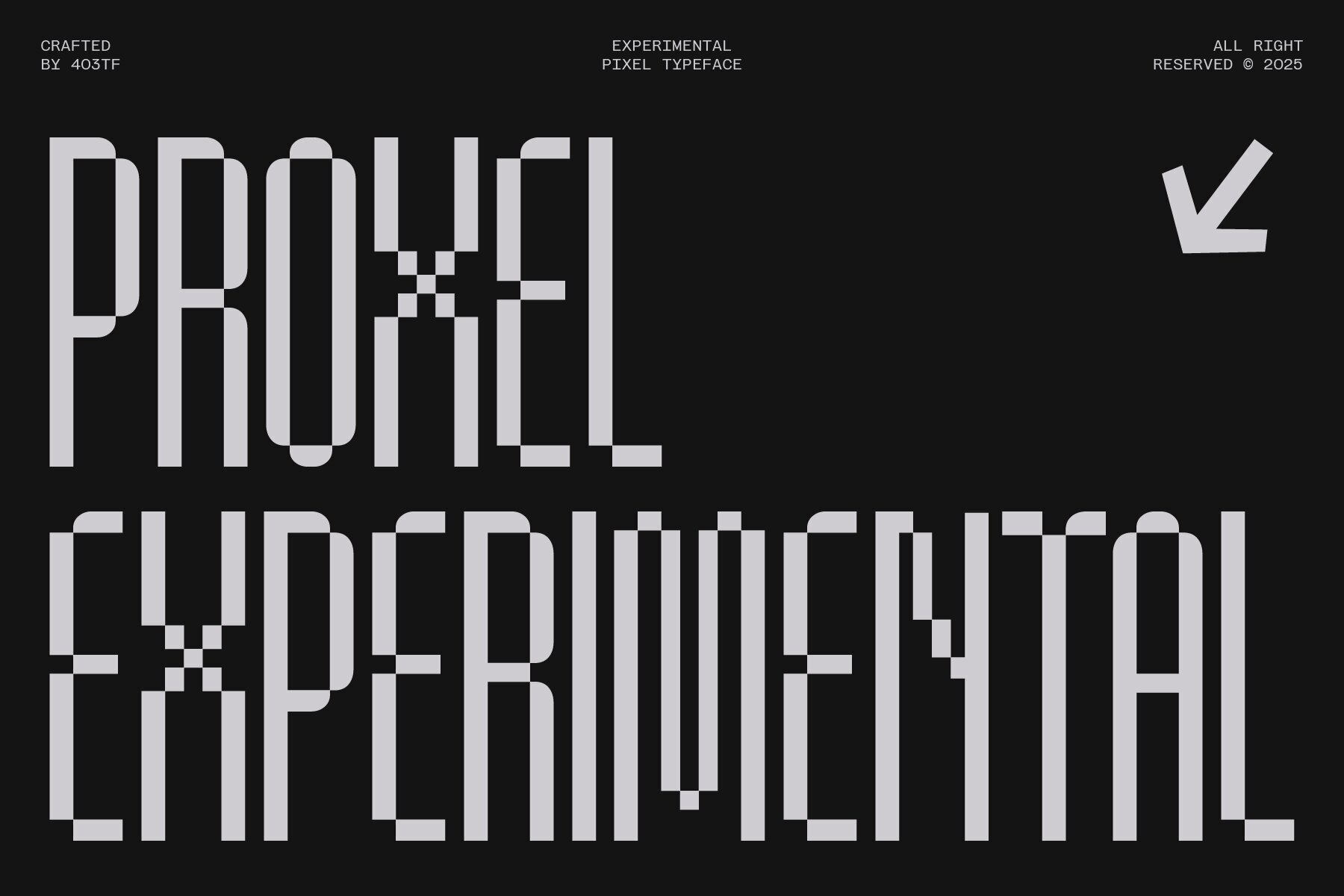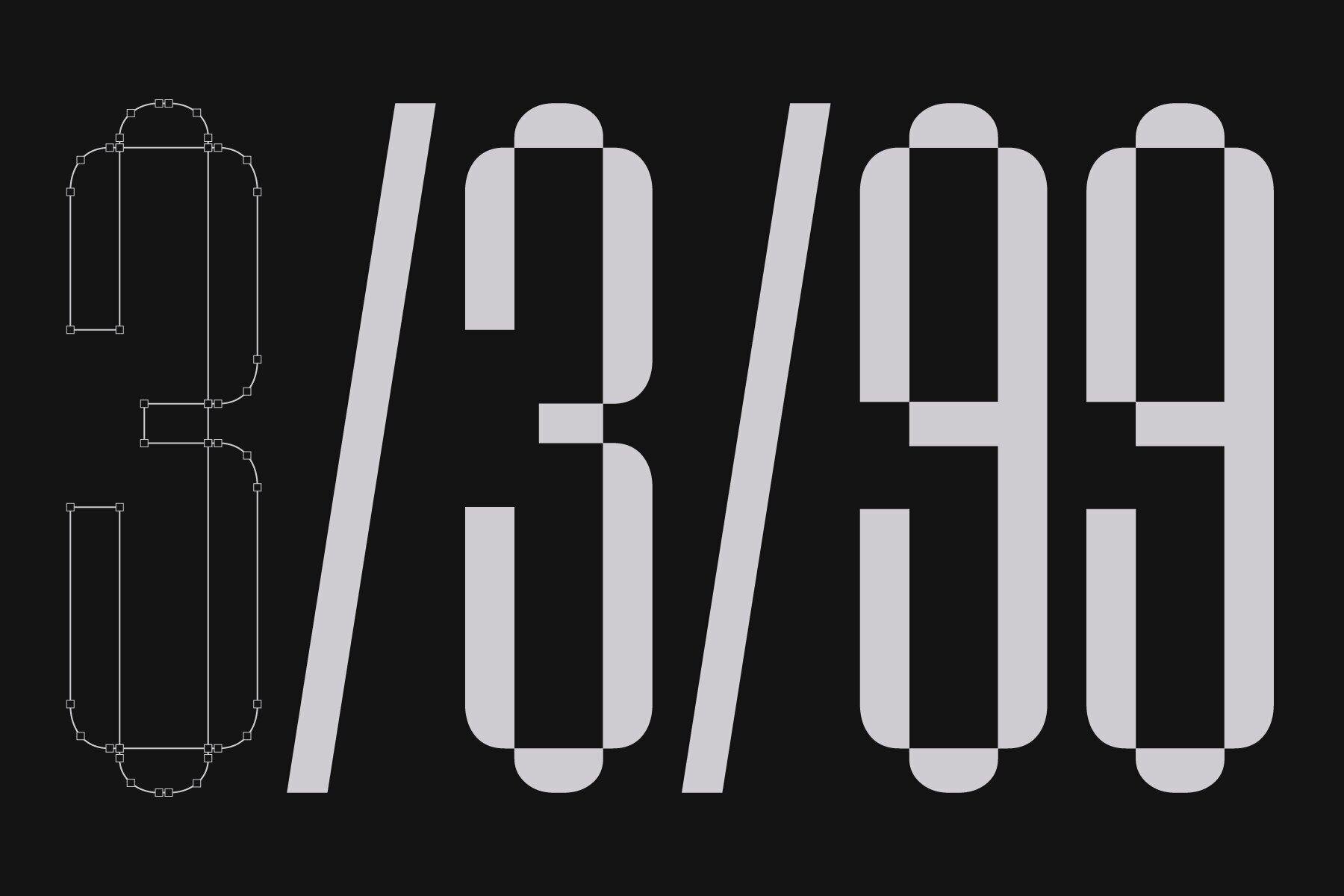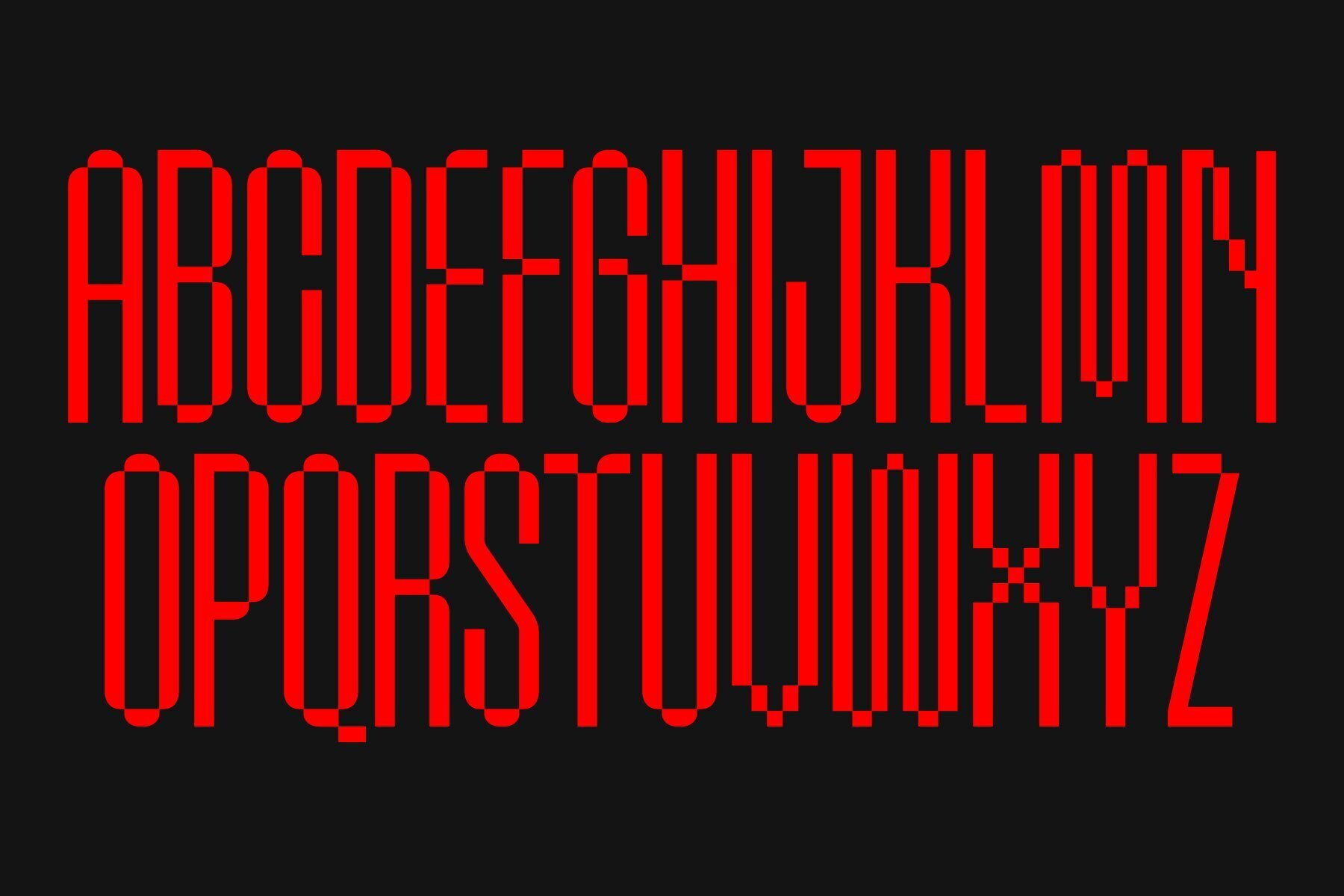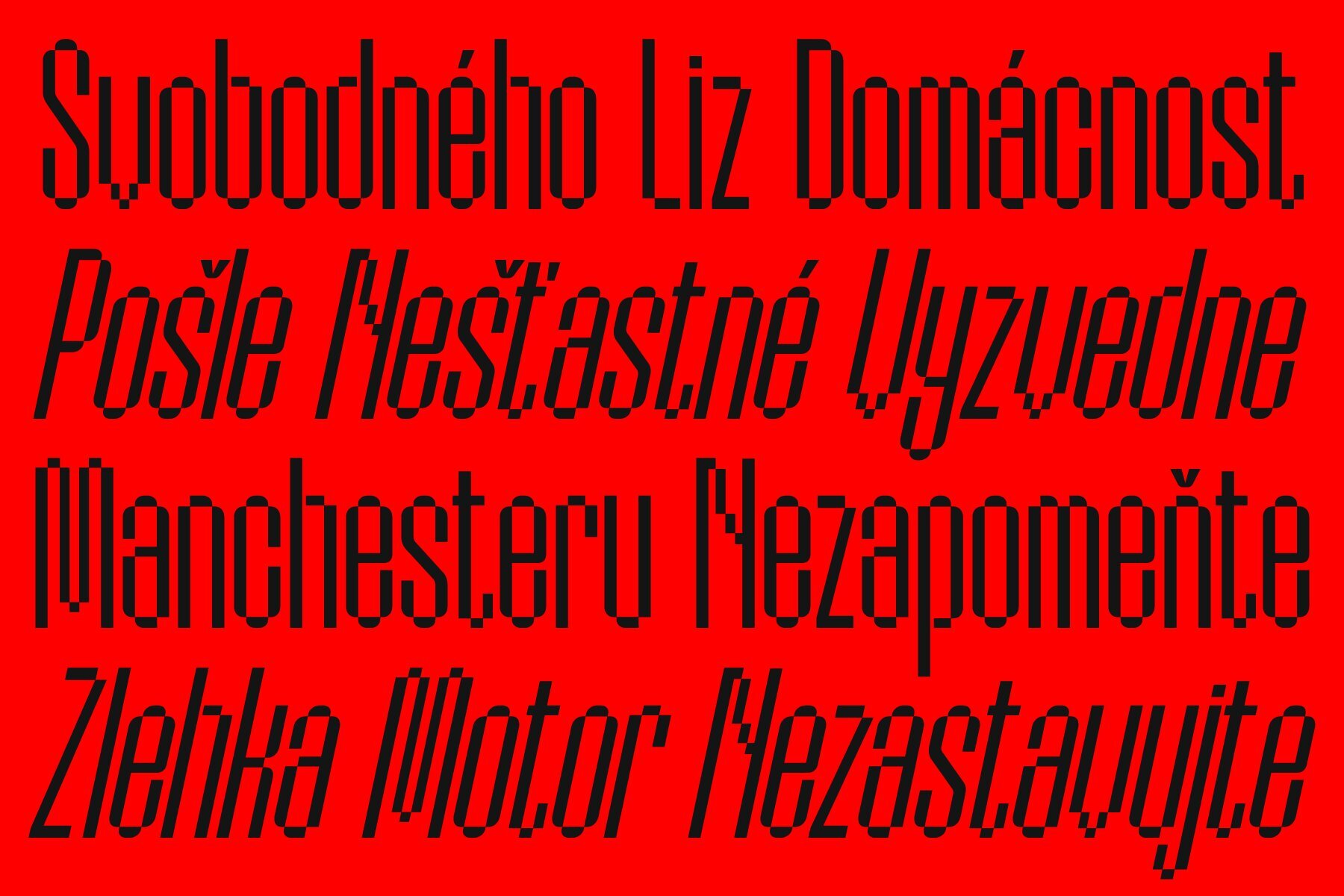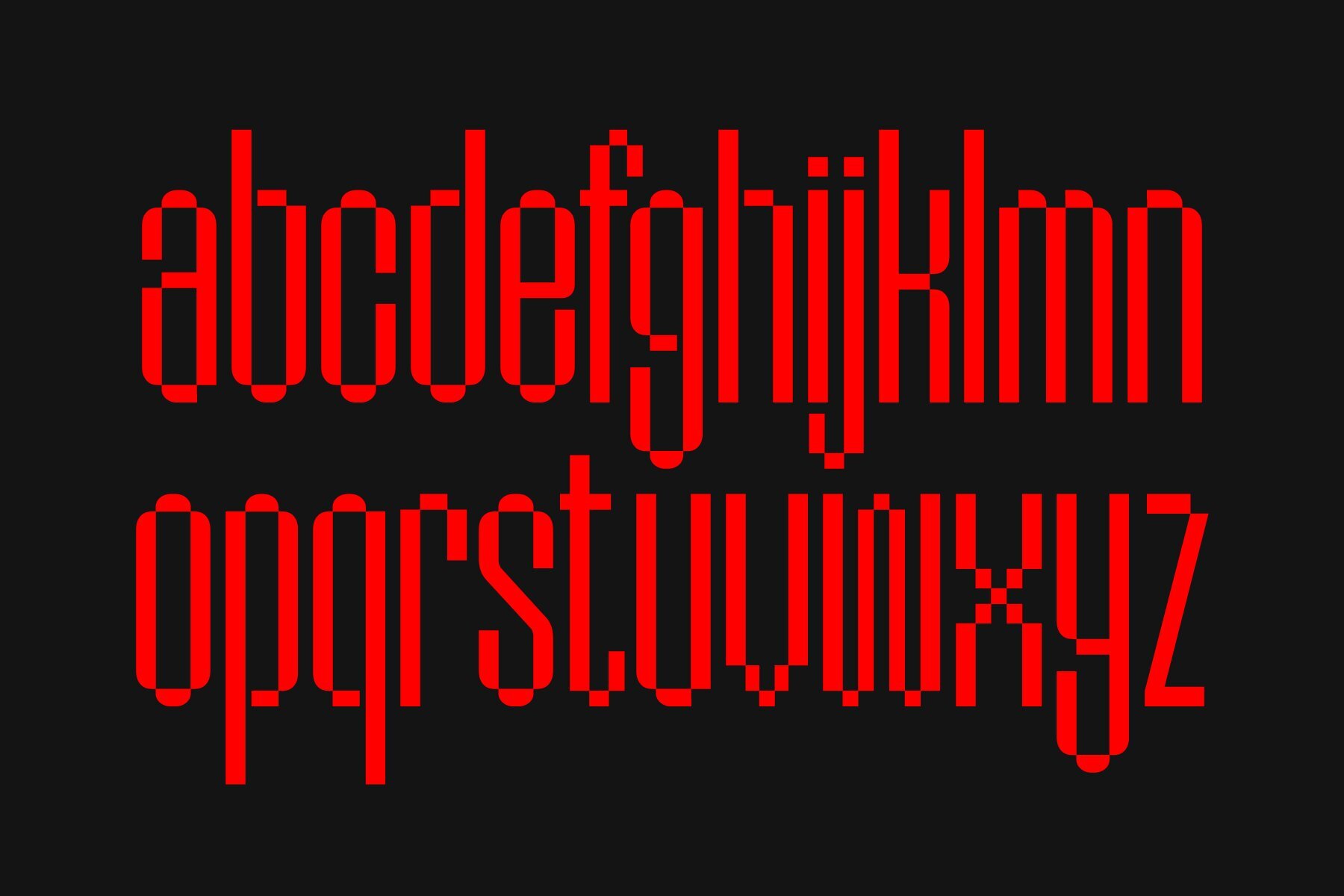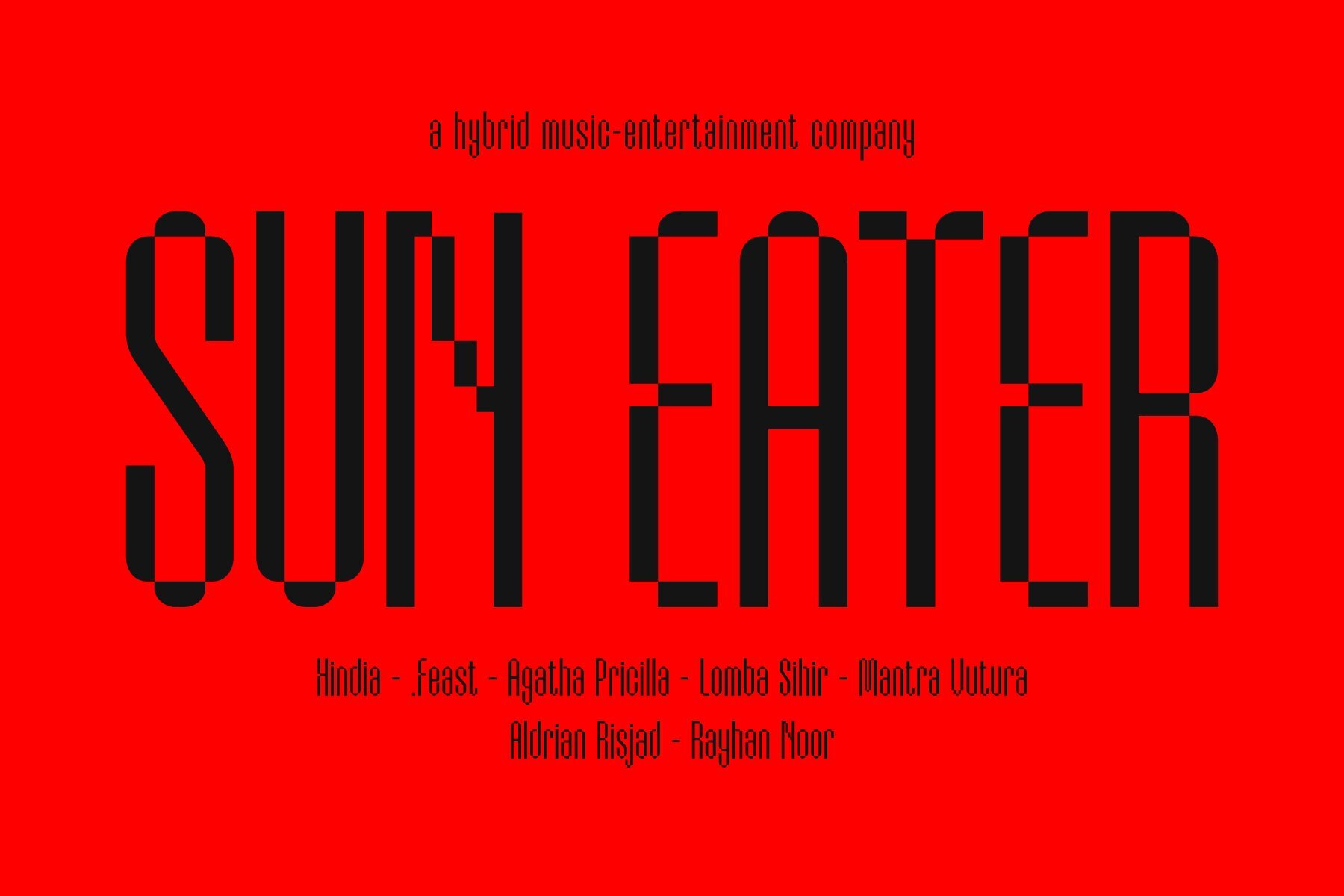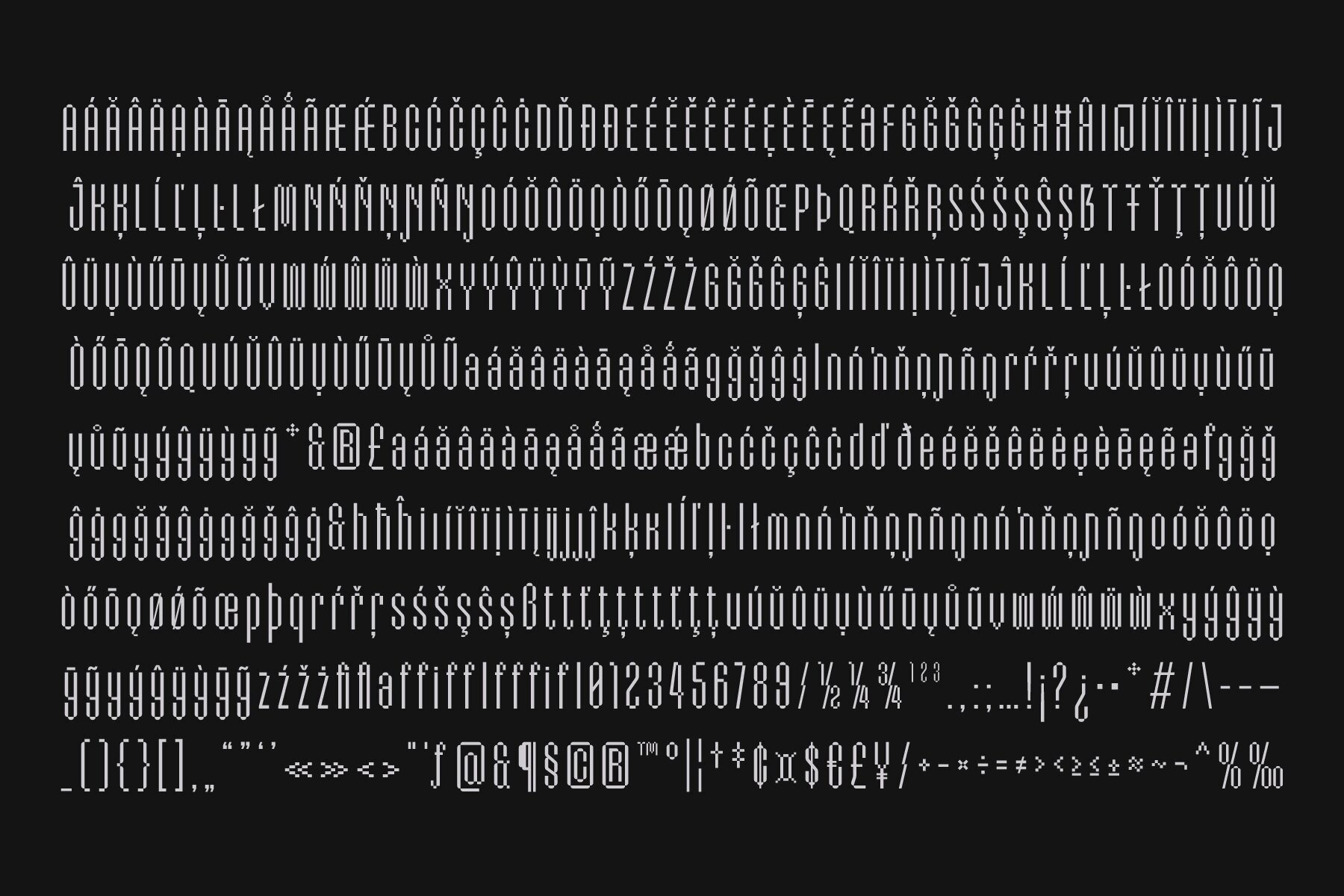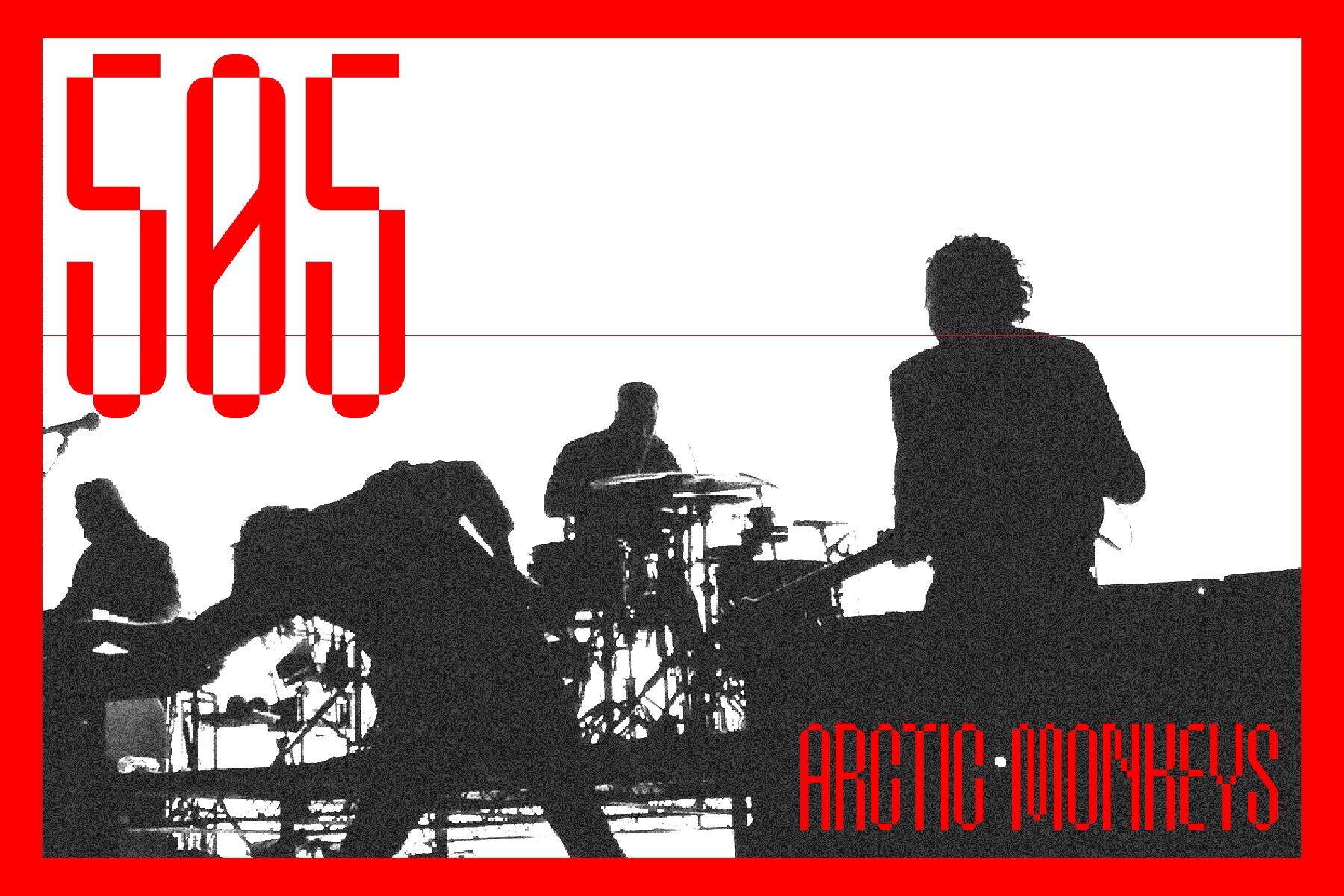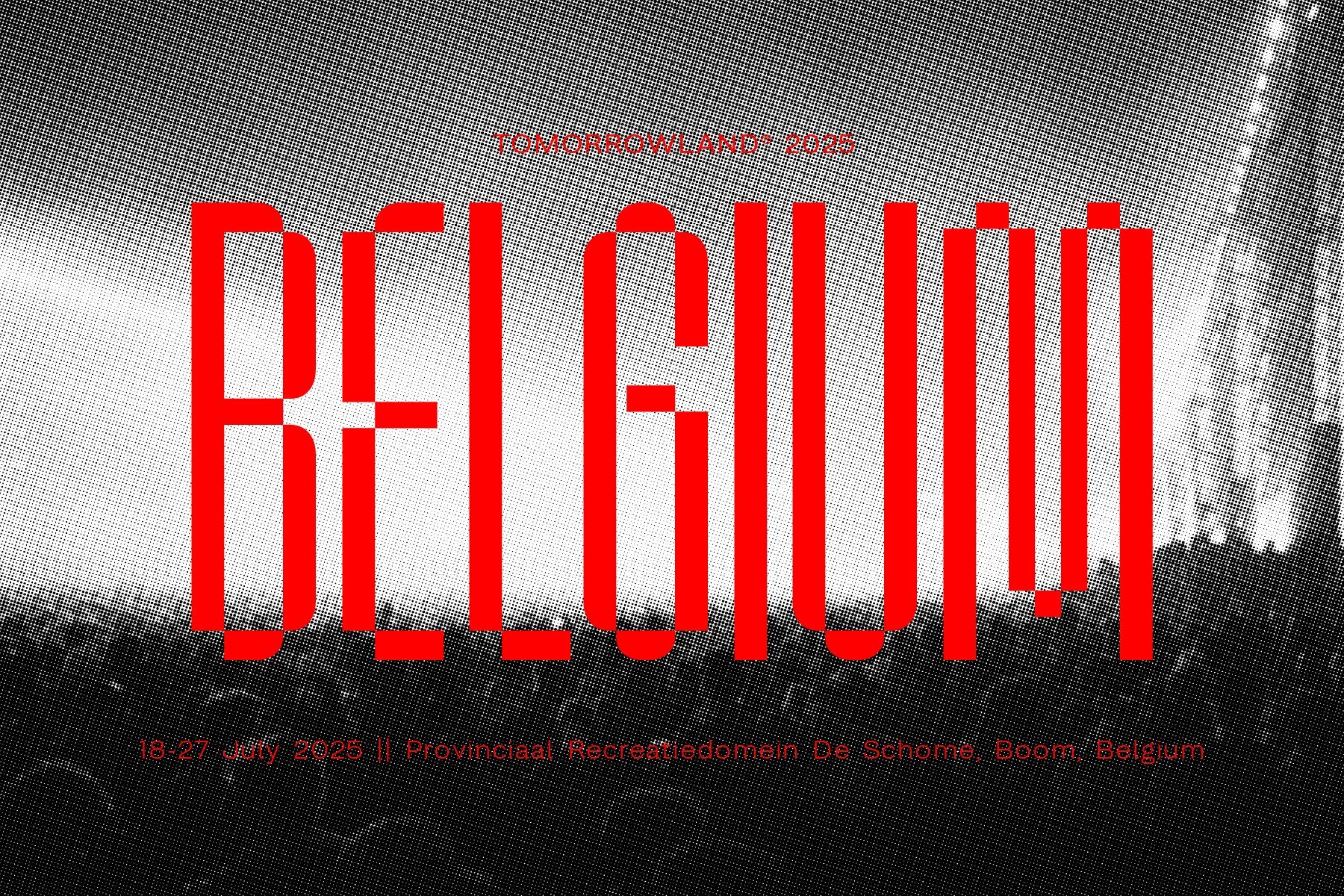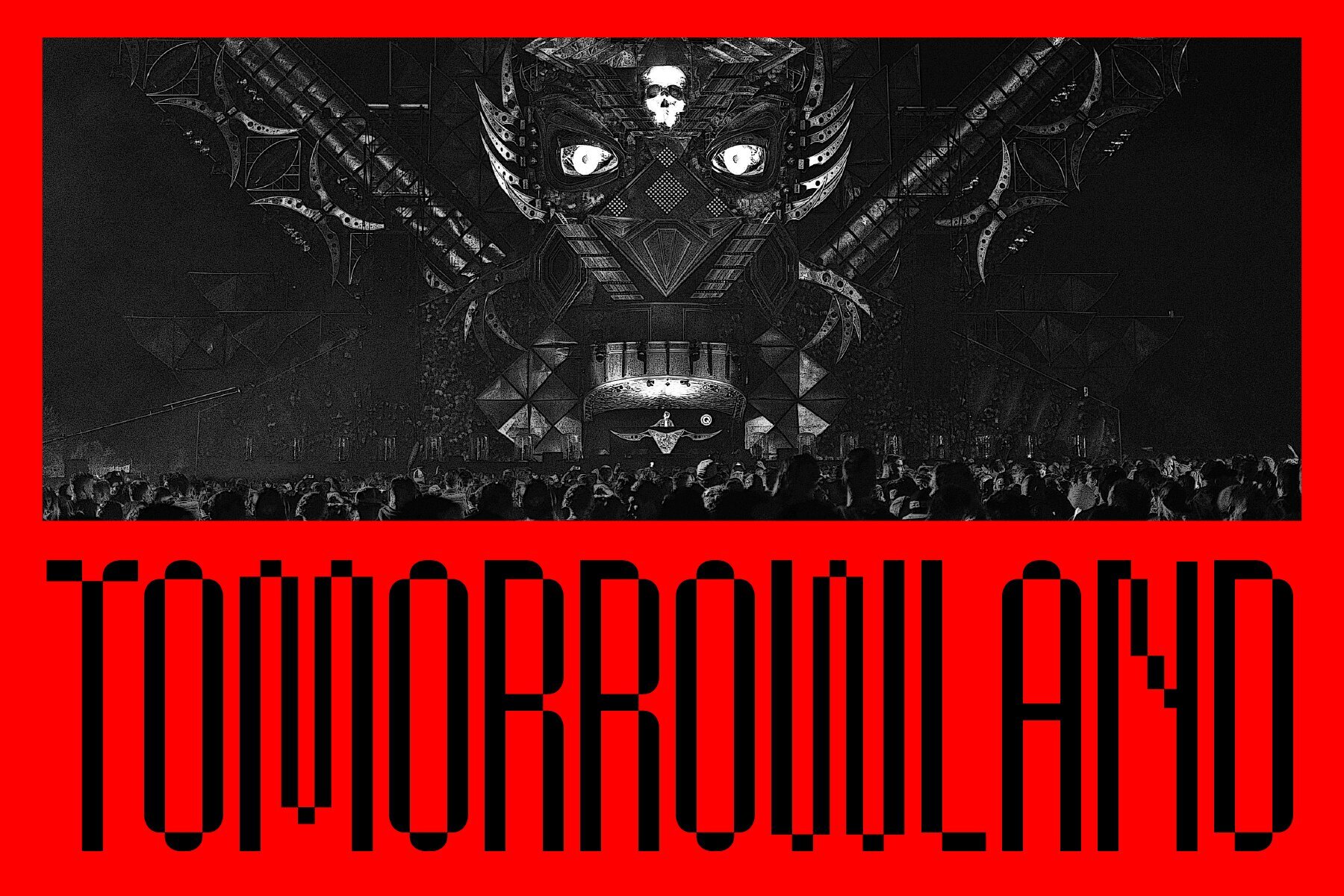
403 Proxel Font
403 Proxel is a condensed sans-serif typeface with a strong geometric base that is bold and experimental. It has a contemporary, futuristic look because to its tall, narrow shapes and sharp angles, and the slanted italics give it movement and vitality. A distinctive visual identity is produced by the rounded square terminals at the stroke ends, which combine modern edge with vintage digital vibes. Particularly in creative industries like fashion, technology, or music, 403 Proxel is ideal for posters, flyers, editorial headlines, branding, and album covers because it is made for high-impact display uses. It is adaptable for multilingual use because it can handle accented characters. It stands out thanks to its eye-catching style, yet for greatest legibility, it works best in larger sizes. For projects looking for a striking, innovative, and unforgettable typographic statement, 403 Proxel is perfect